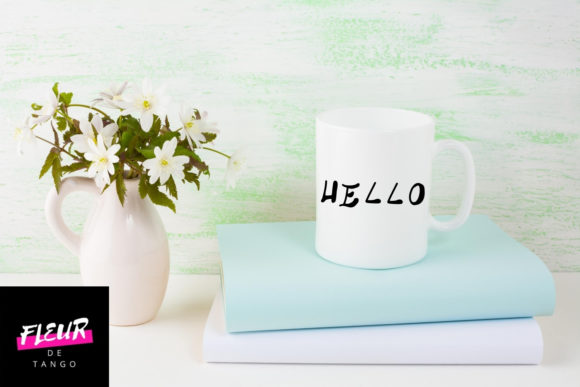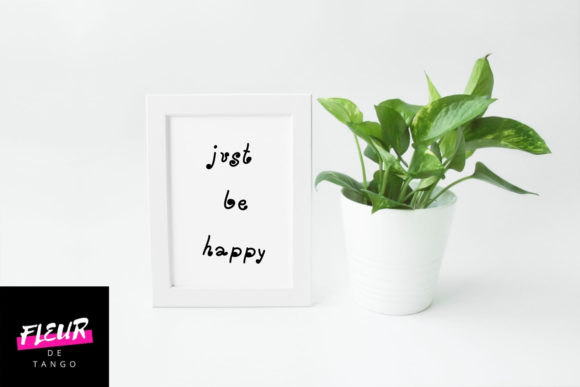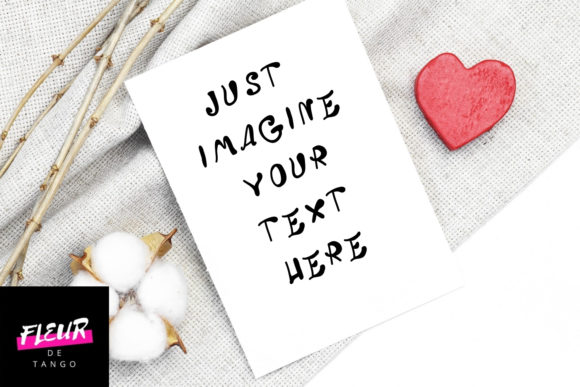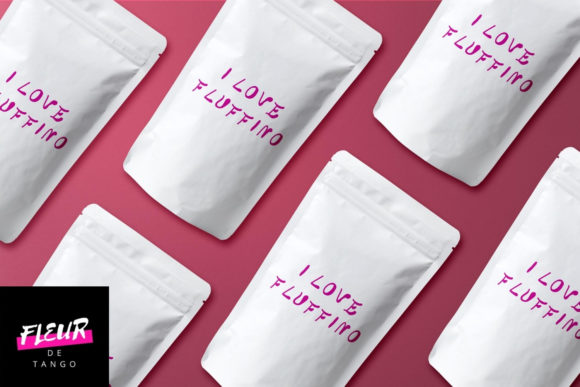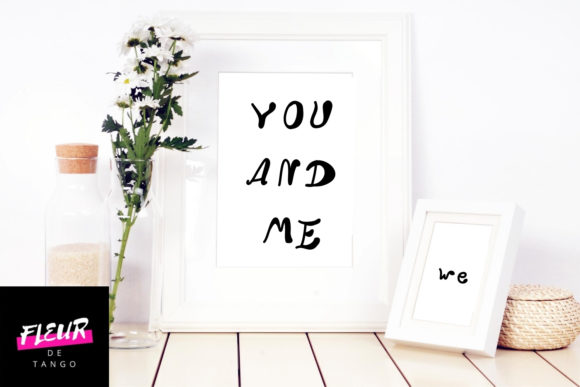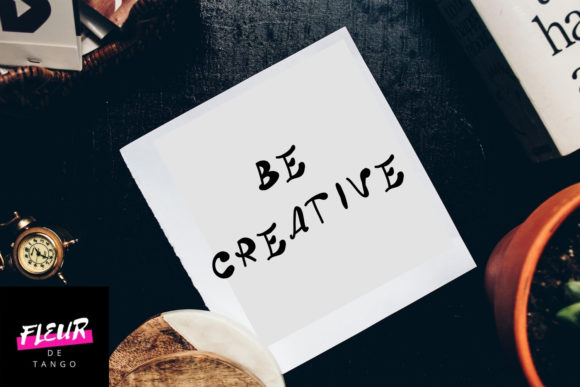
The Fluffino Font: A Cute and Friendly Companion for Your Design Journey
I’ll never forget the moment I stumbled upon the perfect font for a project. I was working on a whimsical craft tutorial, and my client asked for a font that was both playful and elegant. I had spent hours scouring the internet, trying out different fonts, but nothing seemed quite right. That was until I discovered Fluffino – a cute and friendly handwritten font that instantly captured the essence of my design. In this article, I’ll share my experience with Fluffino, its unique features, and how to make the most of it in your designs.
An Honest Review of Fluffino
What I Love About Fluffino ✨
- ✅ Unique and natural style that adds a personal touch to any design
- ✅ Highly versatile and adaptable to various design projects, from crafts to digital products
- ✅ Easy to read and understand, even in smaller sizes
- ✅ The font’s friendly and approachable vibe makes it perfect for designs that require a personal touch
While Fluffino is an excellent font, it’s not without its limitations. ⚠️ Some users may find that the font’s uniqueness can make it challenging to pair with other fonts. Additionally, the font’s handwritten nature means that it may not be suitable for very formal or corporate designs.
- Experiment with OpenType features, such as glyphs and stylistic alternates, to add visual interest to your design
- Explore the font’s OpenType features, such as ligatures and swashes, to add a creative touch to your design
The Story Behind Fluffino
Fluffino was designed with the intention of creating a font that was both cute and friendly. The designer wanted to craft a font that would add a personal touch to any design, making it perfect for creative projects and crafts. The result is a font that is both unique and versatile, with a natural style that makes it easy to read and understand.
Q: What makes Fluffino unique?
A: Fluffino’s unique and natural style sets it apart from other fonts. Its friendly and approachable vibe makes it perfect for designs that require a personal touch.
Q: Is Fluffino suitable for digital products?
A: Absolutely! Fluffino’s clear and readable design makes it perfect for digital products, such as ebooks, tutorials, and websites.
Q: Can I use Fluffino for crafting and DIY projects?
A: Yes, Fluffino is an excellent choice for crafting and DIY projects. Its playful and creative vibe makes it perfect for adding a personal touch to your projects.